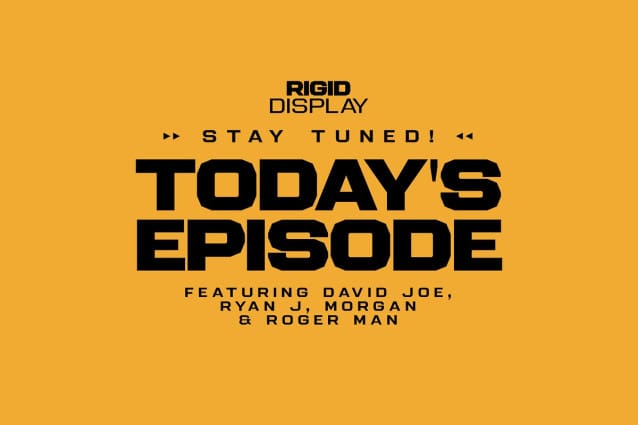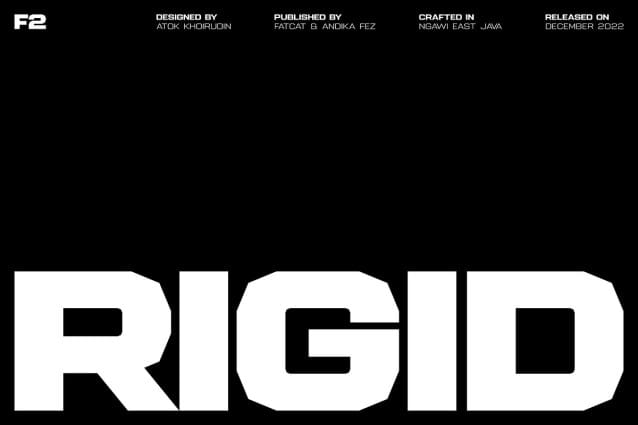
Rigid Sans Font
Rigid Sans Font, is a sans serif font designed for display needs such as titles, logos, etc. with a different touch. Rigid Display provides 5 weights for its users to have freedom in handling. This fresh font is an alternative that will refresh your font library and also the viewers so feel free to choose it as the main pawn for your project.